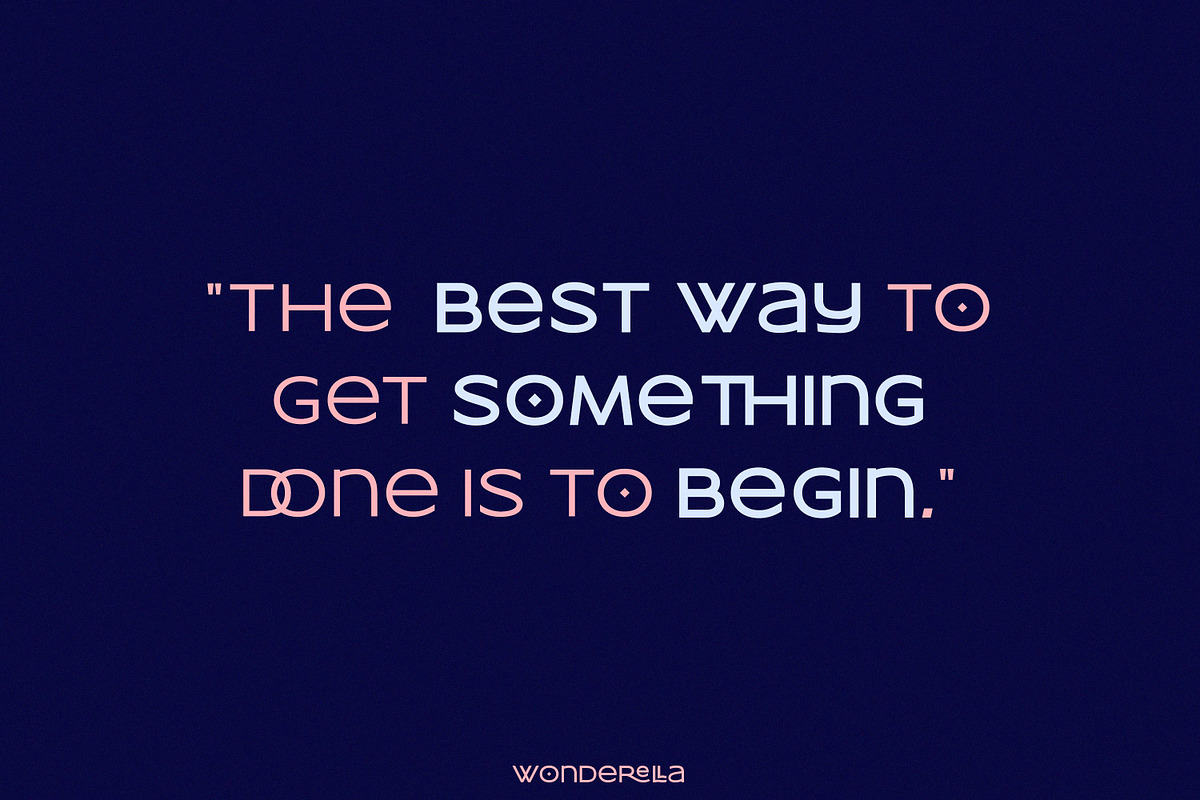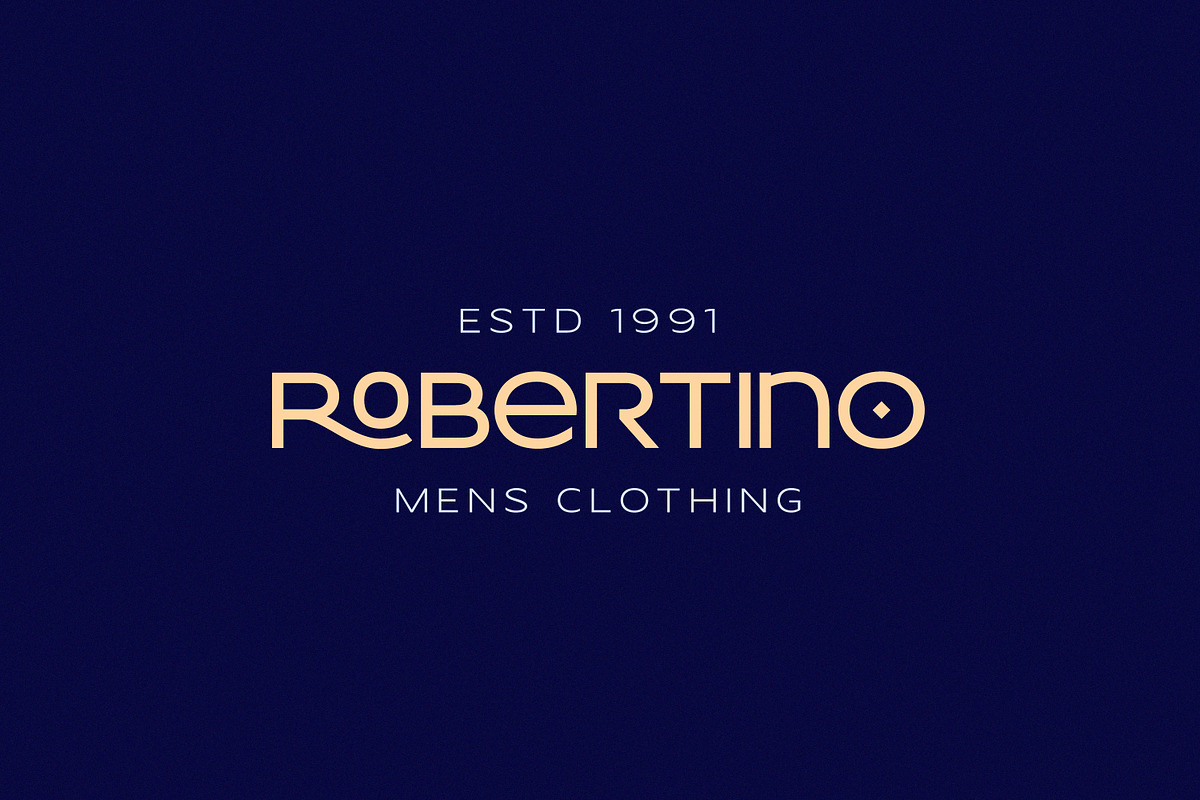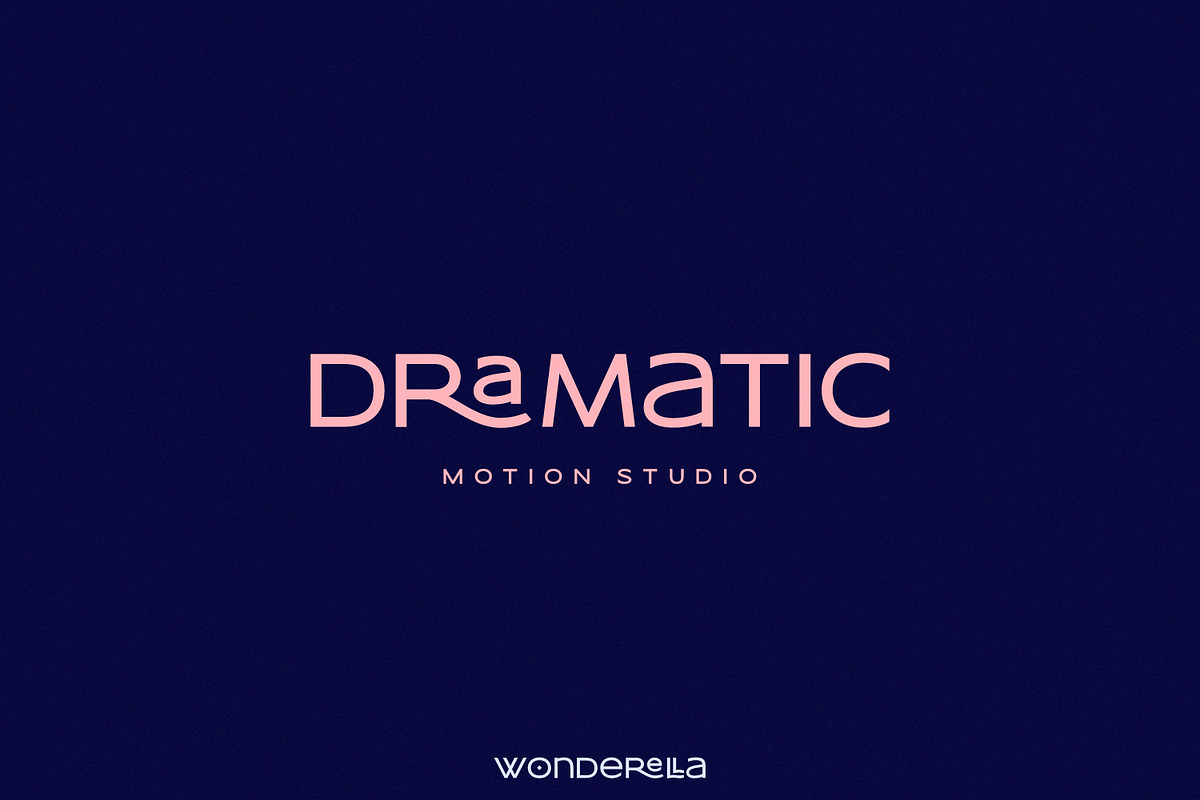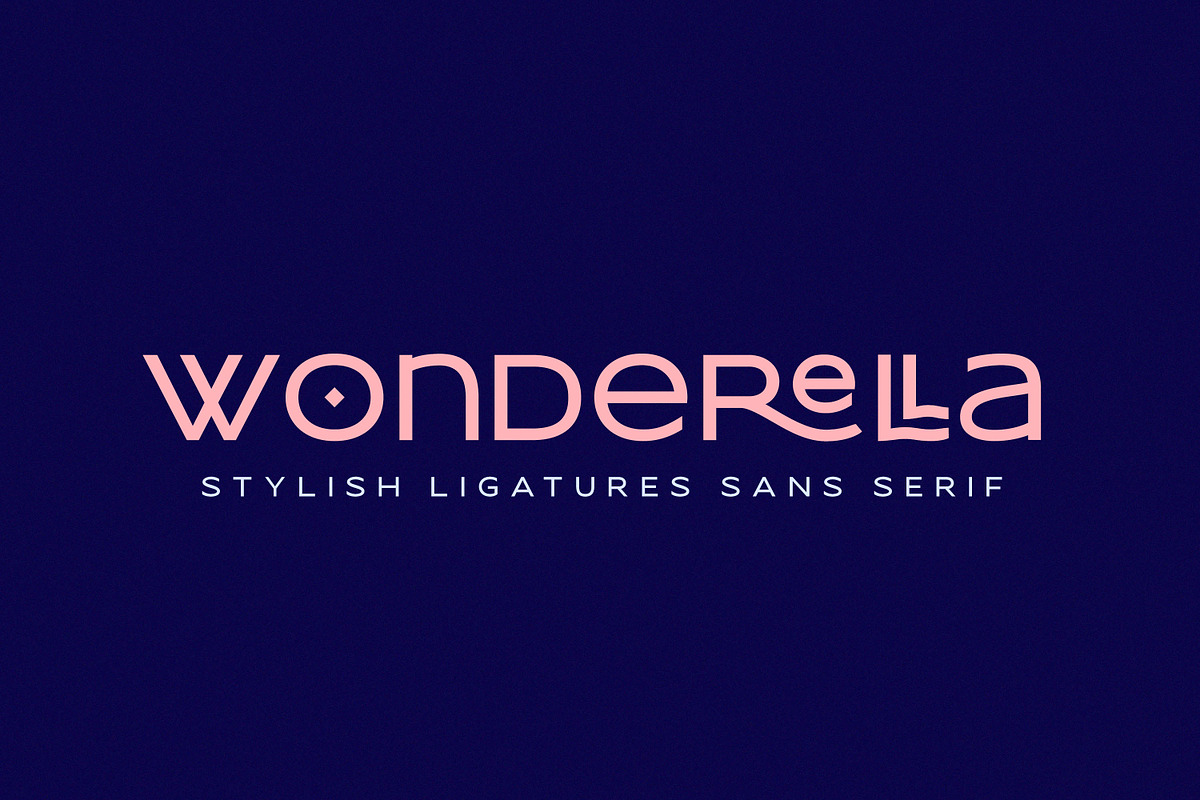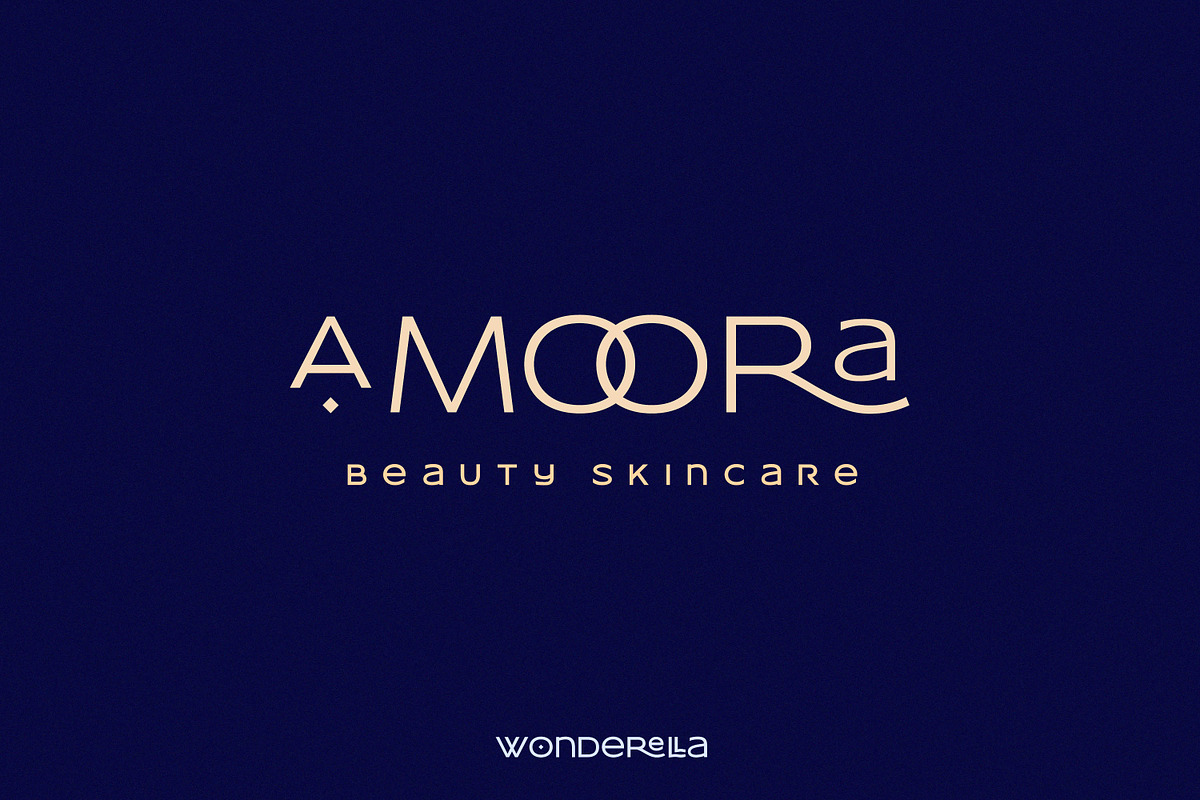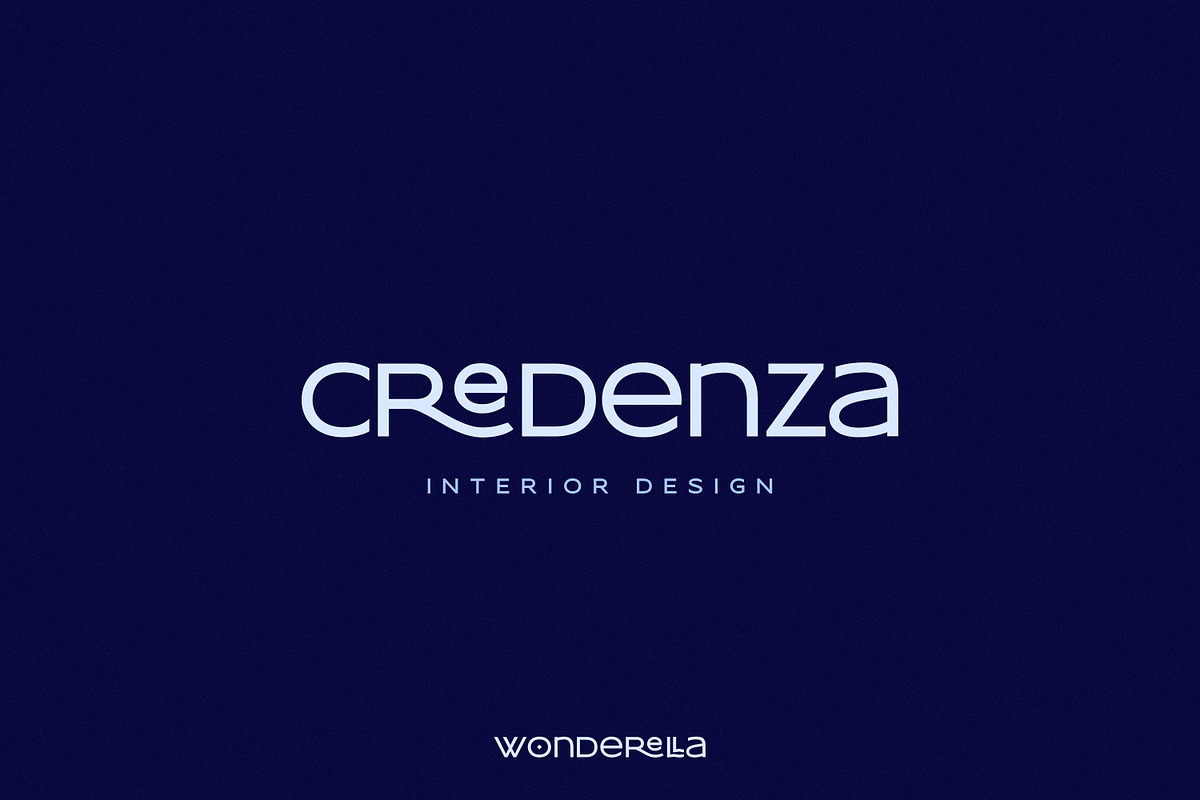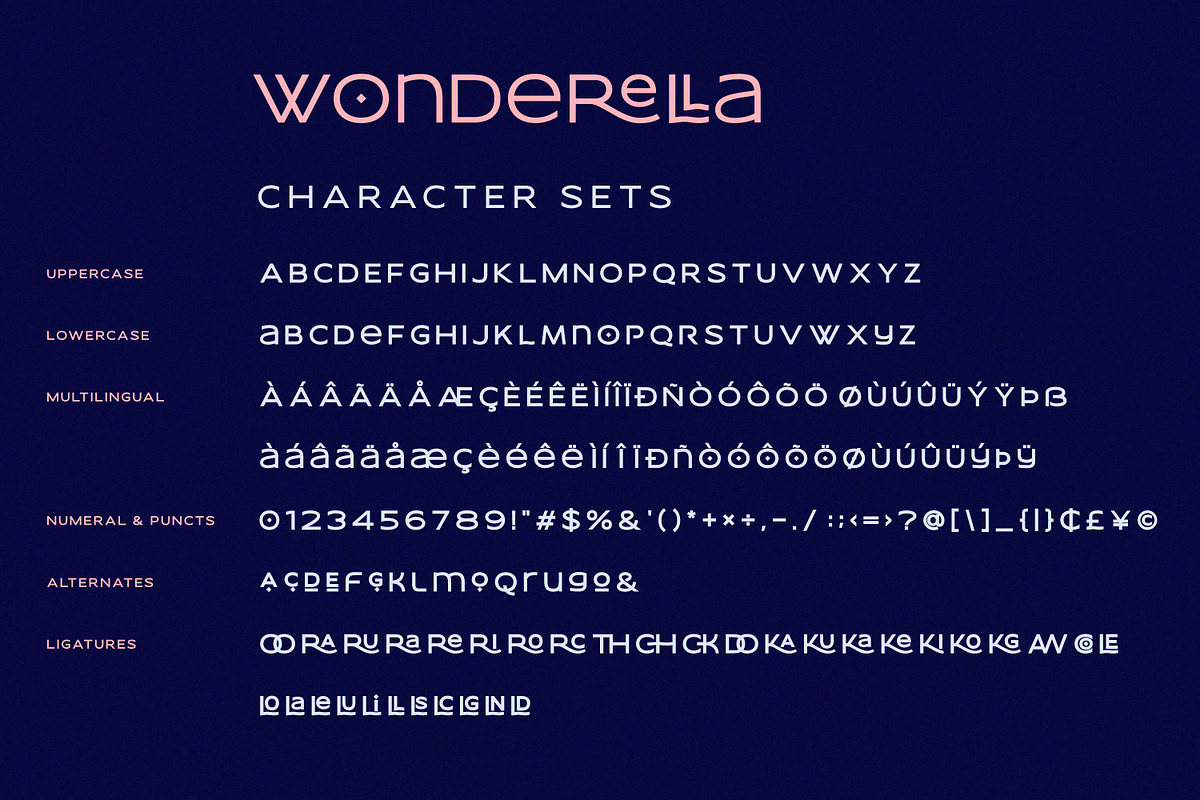
Wonderella - Stylish Ligatures Sans
Wonderella is a cute and casual sans serif font with an incredibly friendly feel. Whether you’re looking for fonts for Instagram or calligraphy scripts for DIY projects, this font will turn any creative idea into a true piece of art!